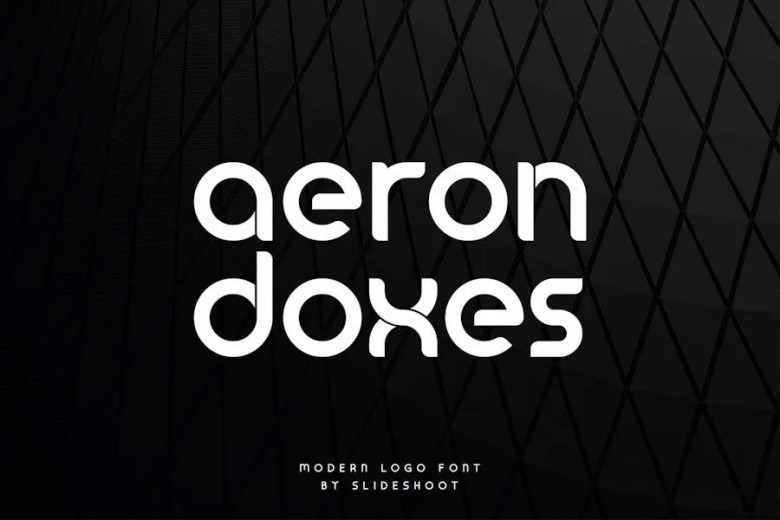
Aeron Doxes Font
Aeron Doxes Sans Serif means the union of geometric style and modern sans serif type. He has a subtle personality of a man, all his features can be described like this, he did not reveal his character deeply. The text designed is best suited with invitation card designs as well as, company logos, movie titles and names, business cards, book titles and names, brand names among other designs.
Aeron Doxes Sans Serif is the contemporary Sans Serif typeface that strictly adheres to Modern and Curves. This gives it a feel of elegance in its alteration and binding which make this font a perfect counterpart for any work.
Aeron Doxes Sans Serif Font